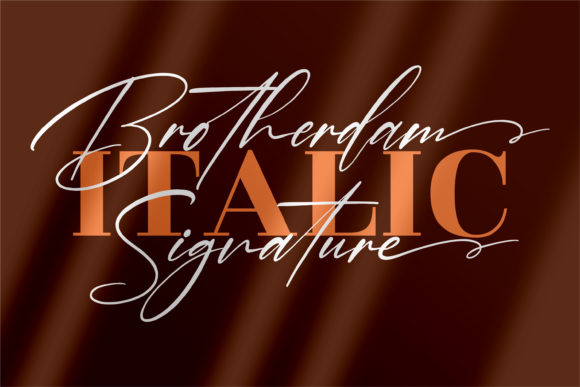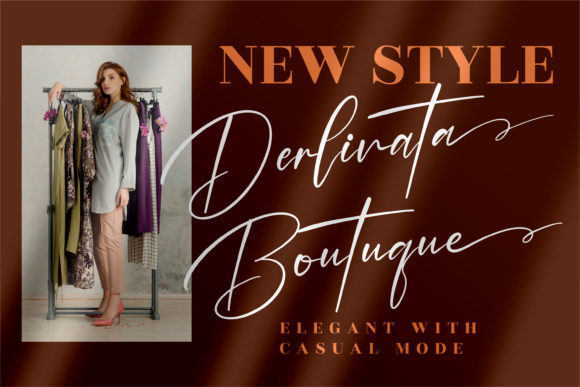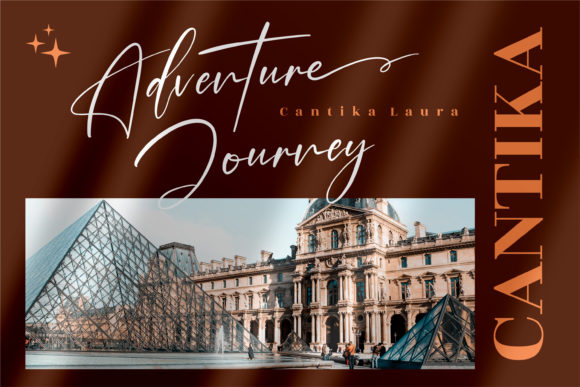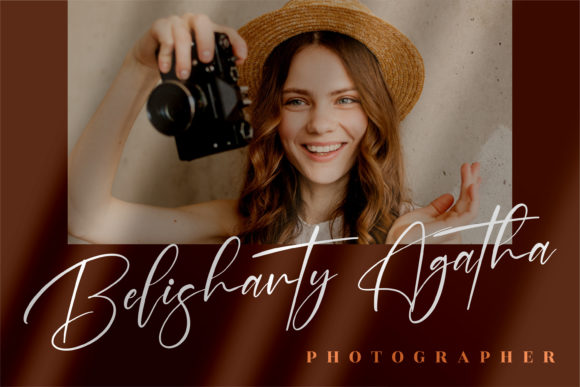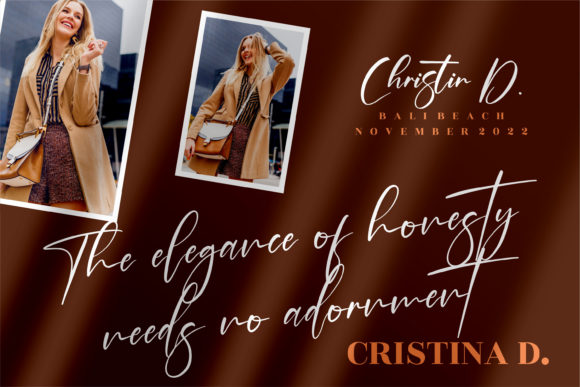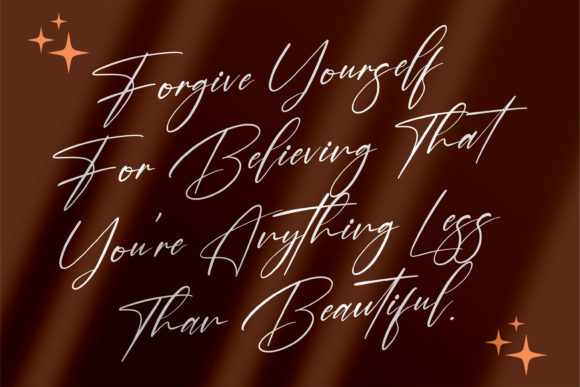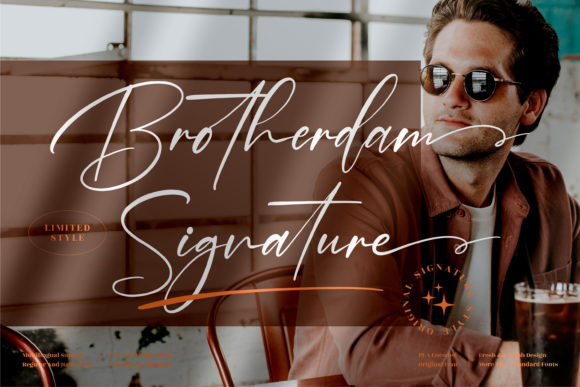
The Elusive Perfect Font: My Encounter with Brotherdam Signature
I’ll never forget the time I was working on a wedding invitation project, and my client asked for a font that was ” elegant, yet modern, and totally unique.” I spent hours scouring the internet, trying out font after font, but nothing seemed quite right. That was until I stumbled upon Brotherdam Signature. This beautiful, thin lettered script font stole my heart, and I’ve been obsessed ever since! 💕
An Honest Review of Brotherdam Signature
• 💫 Its ravishing style, perfect for creating gorgeous wedding invitations, beautiful stationery art, and eye-catching social media posts.
• ✅ The font is PUA encoded, making it easy to access all glyphs and swashes.
• 🌟 The elegant, cursive script is perfect for adding a touch of sophistication to any design project.
While Brotherdam Signature is an amazing font, there are a few things to keep in mind:
• 🤔 As with any script font, it can be a bit tricky to read at smaller sizes. Make sure to test it out at different sizes to ensure it’s legible.
• ⚠️ Some users may find the font a bit limited in terms of versatility. However, the OpenType features and glyphs more than make up for this.
The Story Behind Brotherdam Signature
Brotherdam Signature was designed with love and care by a talented font designer. The goal was to create a beautiful, elegant script font that would be perfect for a variety of design projects. With its thin lettering and gorgeous swashes, Brotherdam Signature is sure to become a favorite among designers and crafters alike.
A: PUA (Private Use Area) encoding allows you to access all glyphs and swashes in the font, making it easier to create beautiful designs.
Q: Is Brotherdam Signature difficult to read?
A: As with any script font, Brotherdam Signature can be a bit tricky to read at smaller sizes. However, it’s designed to be elegant and legible, making it perfect for a variety of design projects.